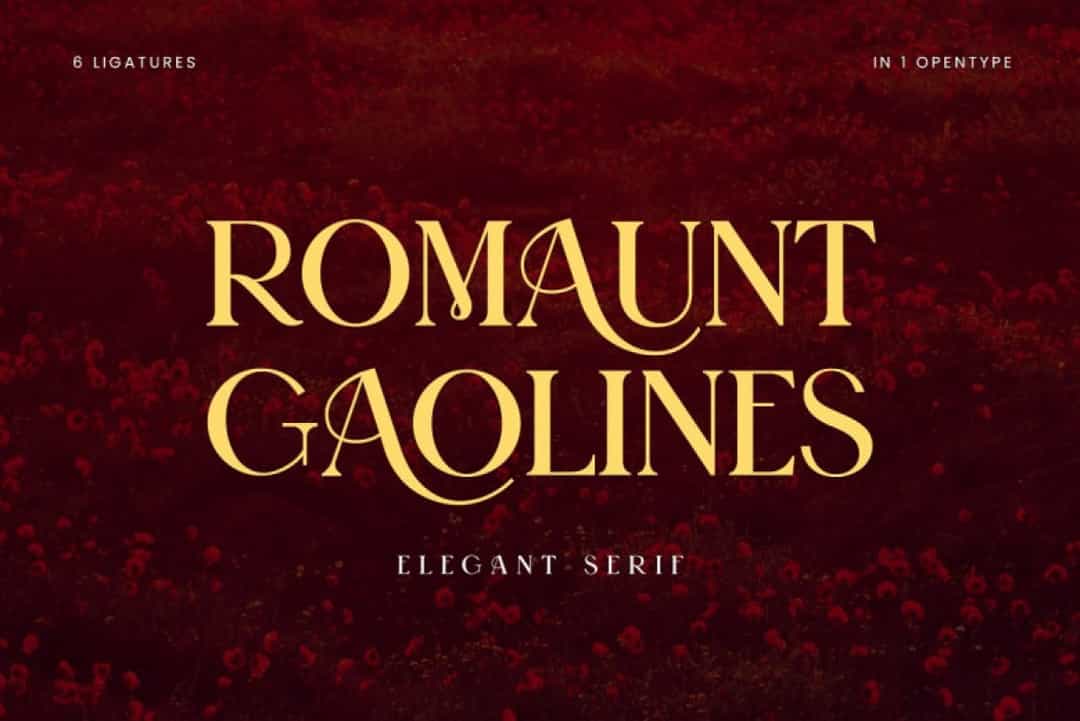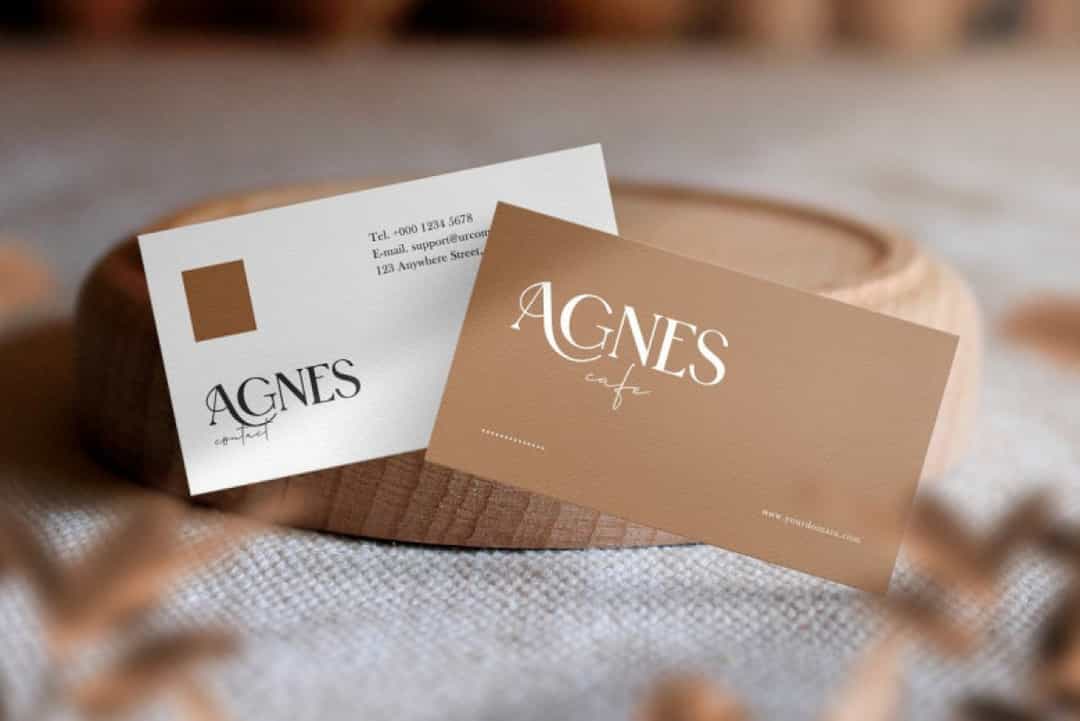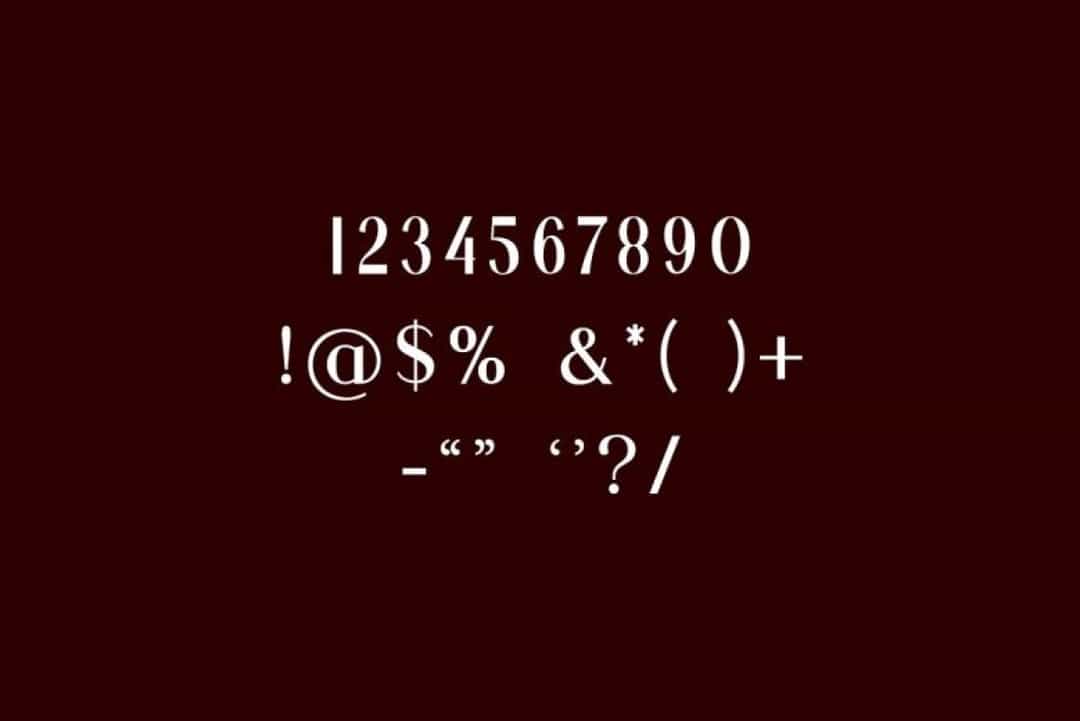
Romaunt Gaolines is an elegant modern serif typeface that exudes sophistication. This typeface makes an excellent addition to designs involving stationary, signatures, logos wedding, typography quote magazines or book covers headers websites clothing packaging design branding and many other applications.